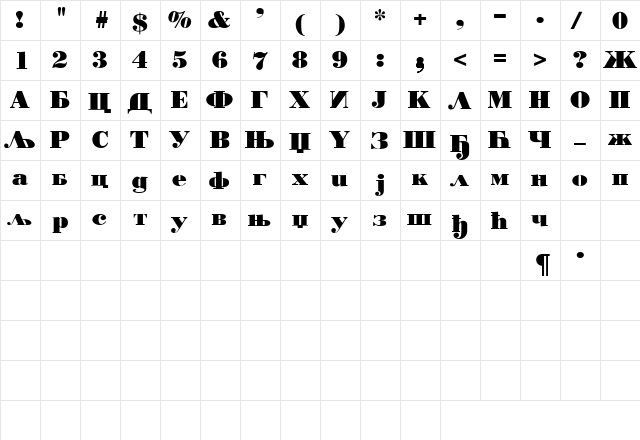
Bodoni Roman Cirilica Regular
Design Context for Bodoni Roman Cirilica Typeface
Bodoni Roman Cirilica offers clean, dependable letterforms without strong stylistic allegiance, making it a practical choice for designers who need flexibility.